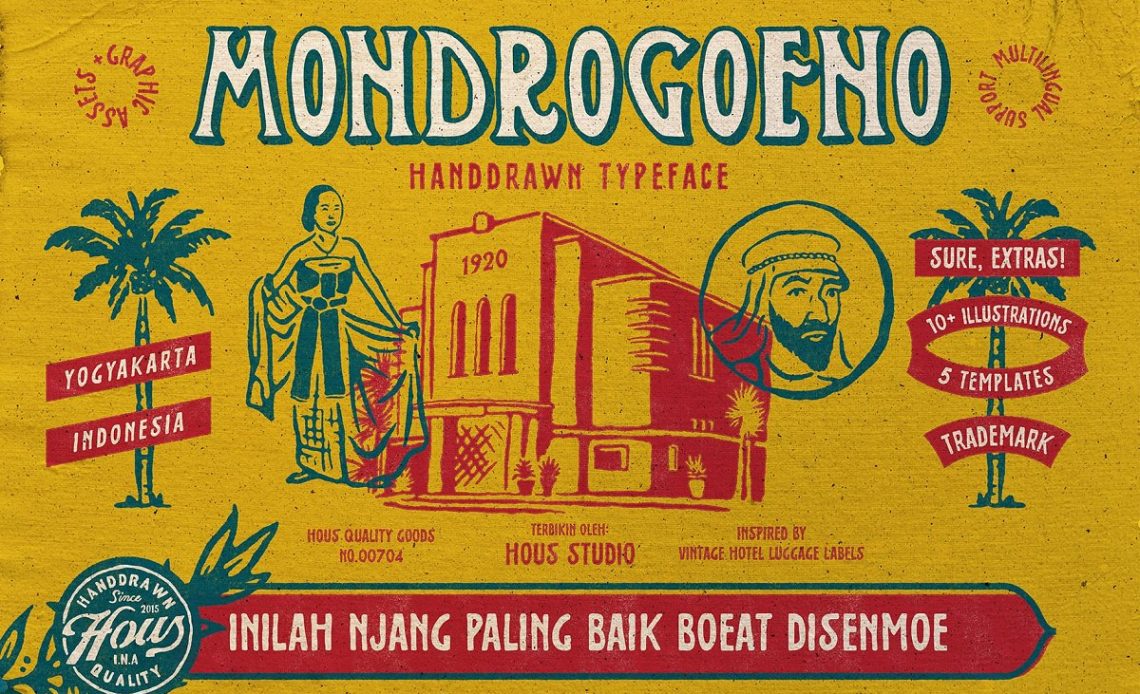
Introducing the captivating and versatile Mondrogoeno Typeface, the perfect font collection for anyone seeking to elevate their small display projects to new heights. Created by the talented Fahrenno Asnawan, this font family is inspired by vintage hotel luggage labels, adding a touch of timeless elegance to any design.
At its core, Mondrogoeno Typeface is the epitome of excellence in font design. Its intricate details and carefully crafted curves make it a true work of art. But what truly sets this collection apart is its ability to evoke emotions and captivate users at first glance.
With its rich selection of fonts, Mondrogoeno offers endless possibilities for your creative ventures. Whether you're designing a logo, crafting a website, or creating eye-catching social media posts, this collection has the perfect font to suit your needs. Its versatility ensures that your message will be conveyed with precision and style, leaving a lasting impact on your audience.
But that's not all! As a bonus, Mondrogoeno Typeface comes with a delightful array of illustrations and 5 badge templates, enabling you to add an extra layer of charm to your projects. From t-shirts to bandanas, labels to stickers, the possibilities are endless. Let your imagination run wild and watch as these templates transform your creations into true works of art.
With Mondrogoeno Typeface, the power to stand out from the crowd is at your fingertips. Say goodbye to dull and lifeless designs, and embrace the captivating allure of this font collection. Each stroke carries with it a sense of emotion and creativity, ensuring that your work will leave a lasting impression.
In a world where first impressions matter, Mondrogoeno Typeface guarantees that you'll make a statement. Its keyword-rich design ensures that your content will be easily discovered by users searching for the best font for small display projects. Let your creativity soar and watch as your designs come to life with this exceptional collection.